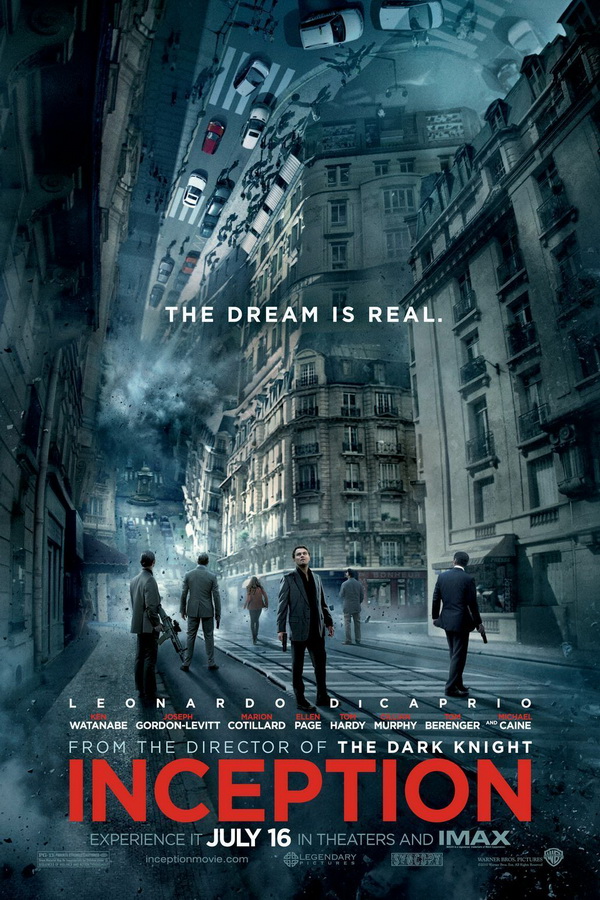
Inception Font
Fonts in UseInception is a 2010 science-fiction heist film directed by Christopher Nolan. The movie follows a skilled thief who enters people's dreams to steal their secrets.
The title font featured on the poster is Gotham Bold, a commercial typeface designed by Tobias Frere-Jones in 2000. It's also referred to as the "Obama font" due to its use in Barack Obama's 2008 presidential campaign.